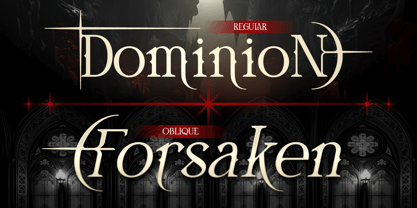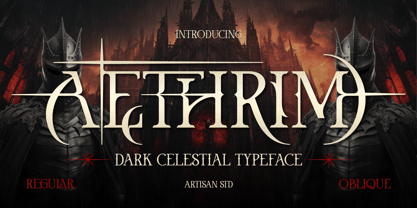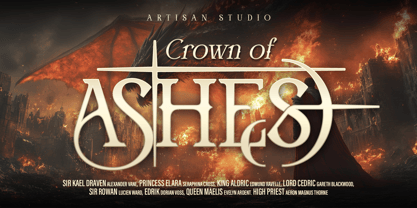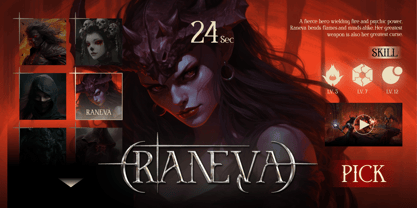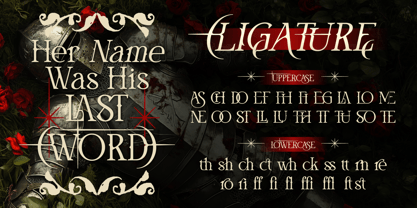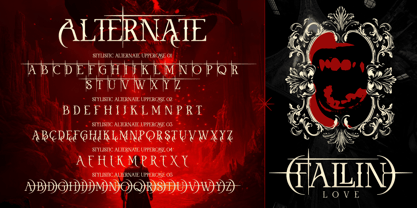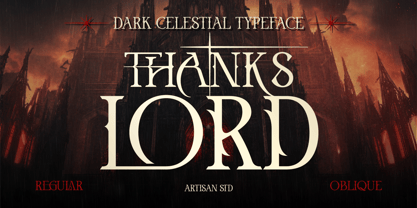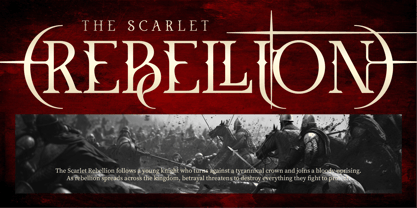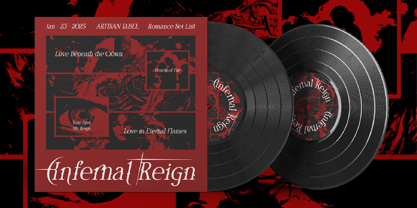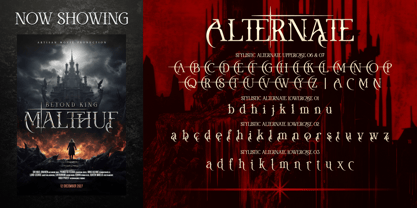
Aethrim
Die Schriftfamilie Aethrim wurde von Meidy Meichico entworfen und von Artisan Themes veröffentlicht. Aethrim enthält 2 Stile und Familienpaketoptionen. Mehr über diese Familie
Step into the shadows with Aethrim, a dark celestial display typeface handcrafted by Artisan Font. Designed with sharp dagger-like serifs, sweeping crescent loops, and dramatic cross flourishes, Aethrim embodies the mystery of gothic fantasy, dark romance, and medieval folklore.
This versatile serif font comes with two distinct styles—Regular and Oblique—allowing you to create striking visual contrast across epic headers and cinematic layouts. Packed with extensive OpenType features, including sharp stylistic alternates and custom cross ligatures, Aethrim gives you the freedom to build custom, hand-crafted logos and book covers effortlessly.
Perfect For:
• Dark Fantasy Book Covers, Novel Headlines & Movie Posters
• RPG & Dark Fantasy Video Game UI / Character Selection Screens
• Metal Band Logos, Album Covers & Vinyl Sleeves
• Gothic Apparel, Streetwear & Dark Aesthetic Merch
• Halloween Invitations, Mystical Cards & Tarot Deck Designs